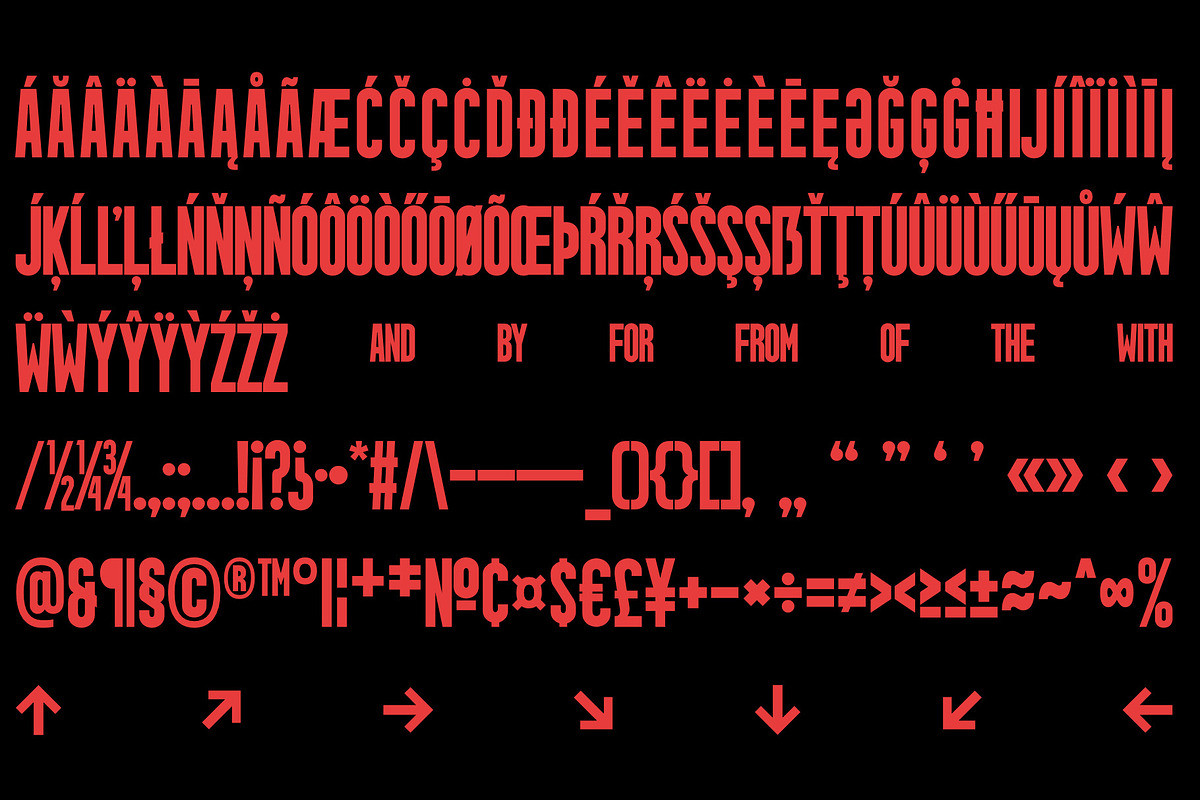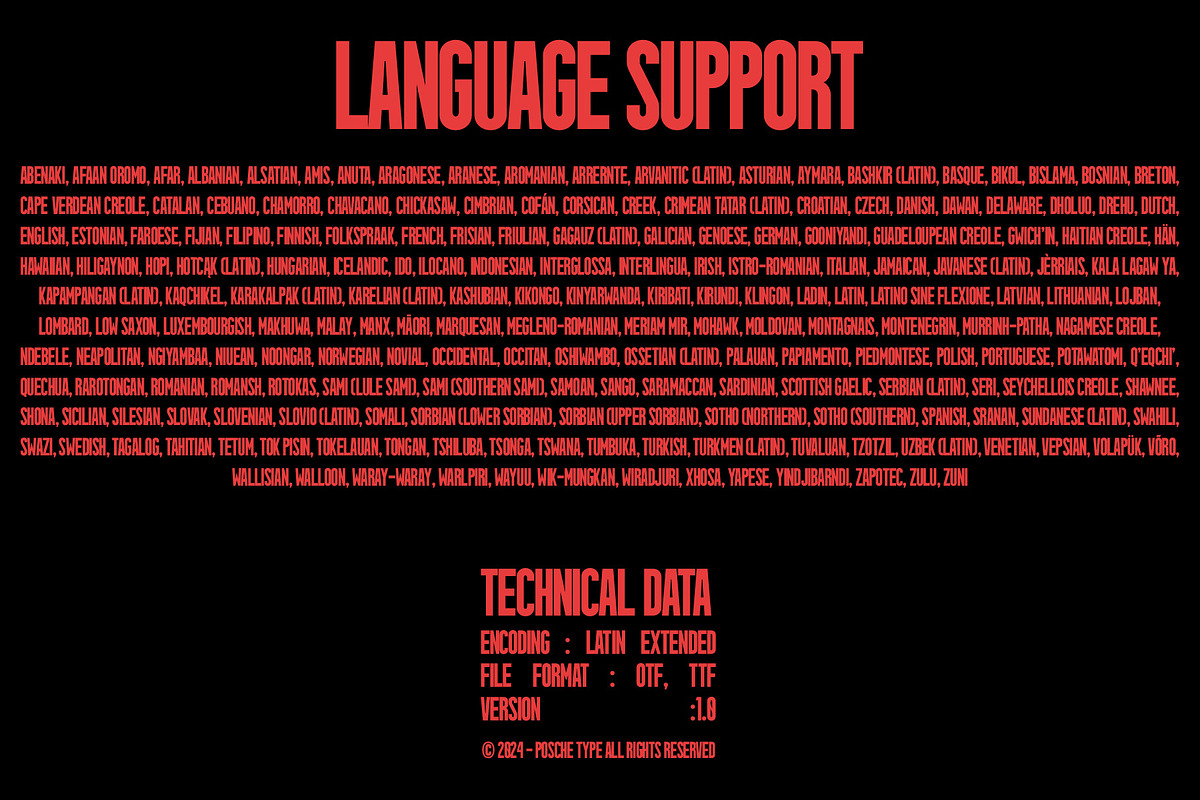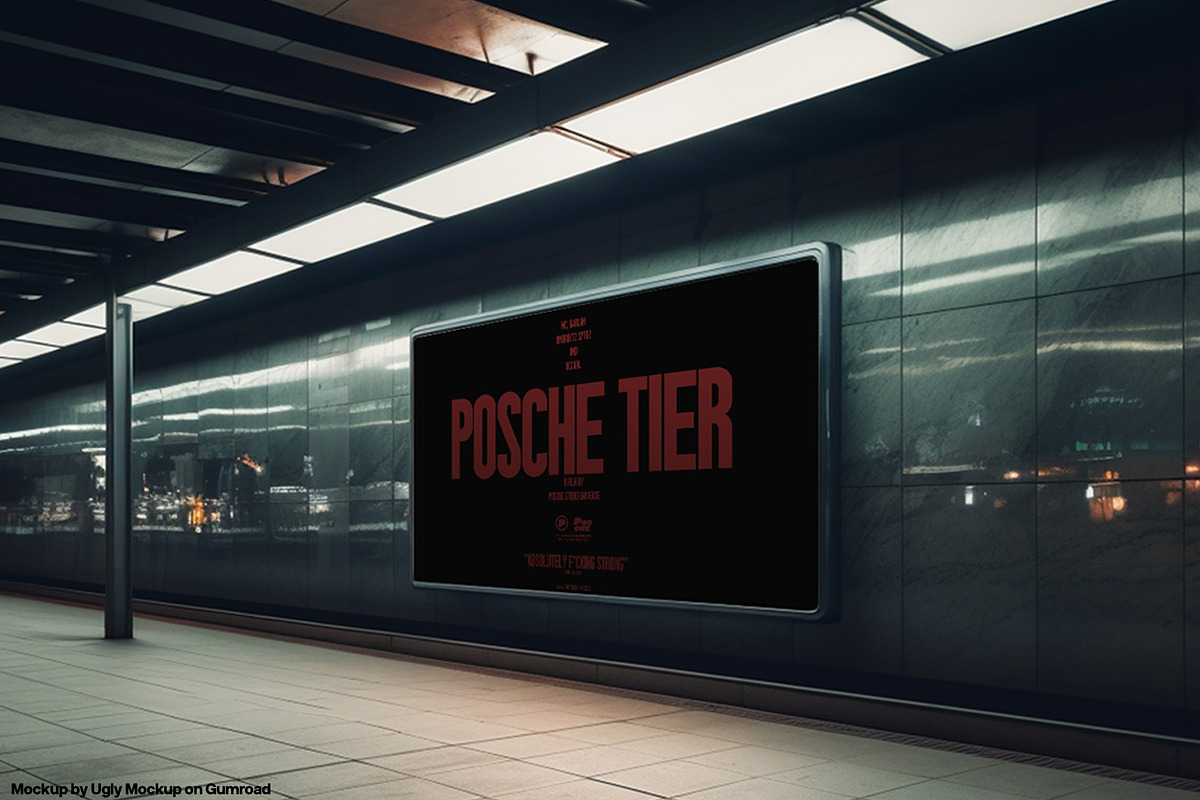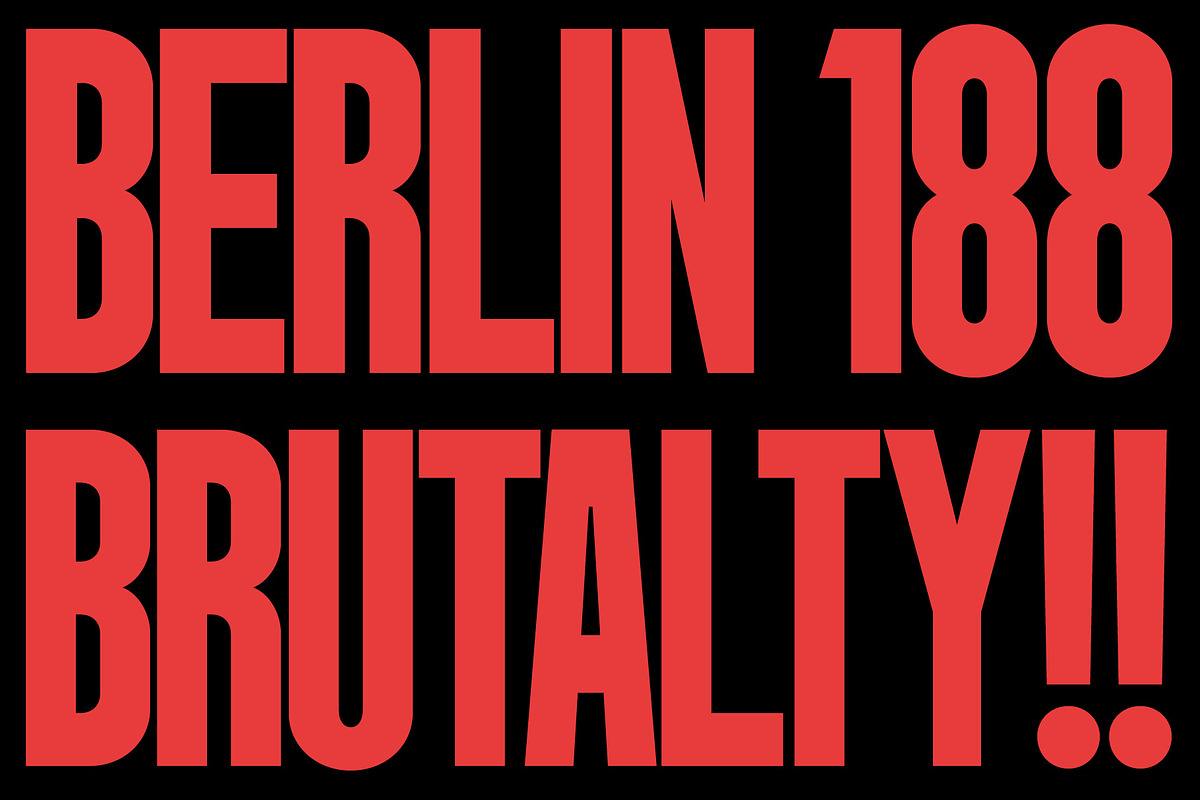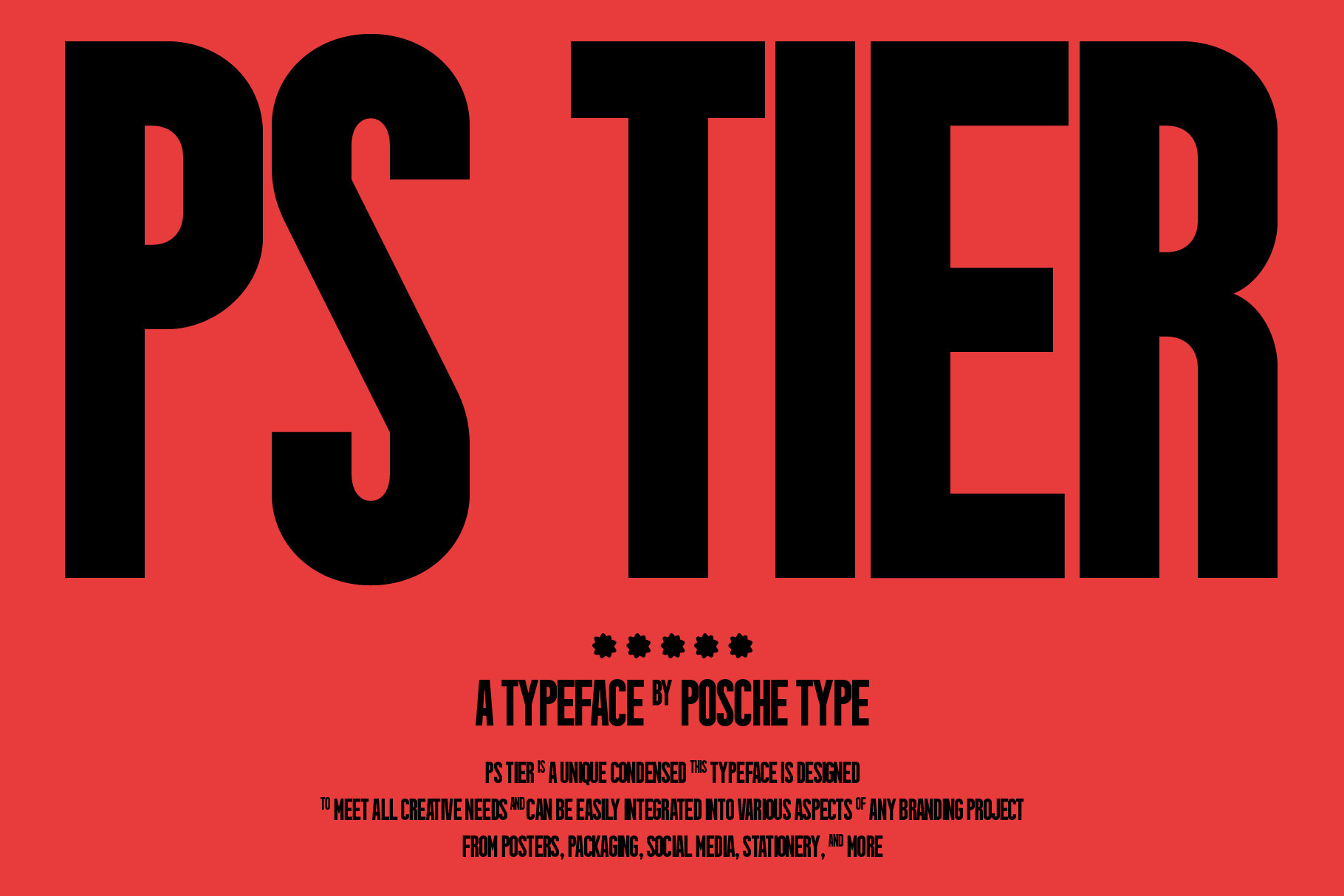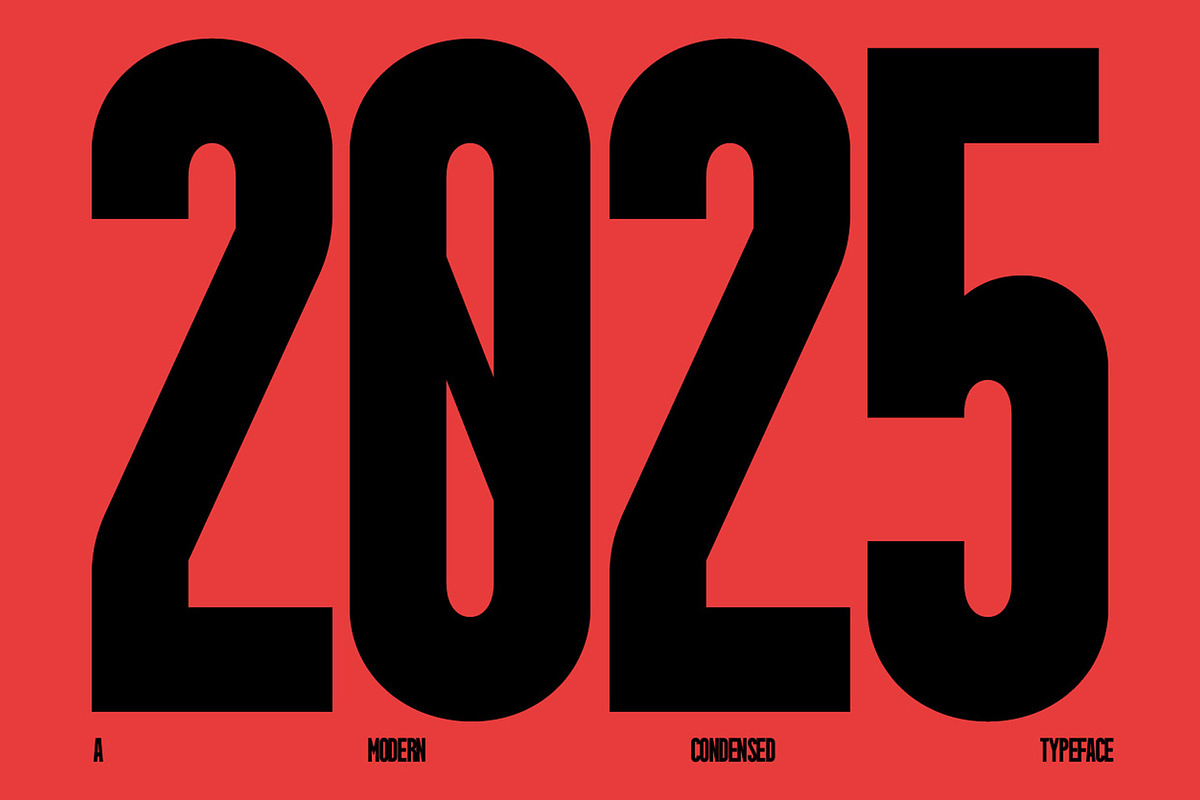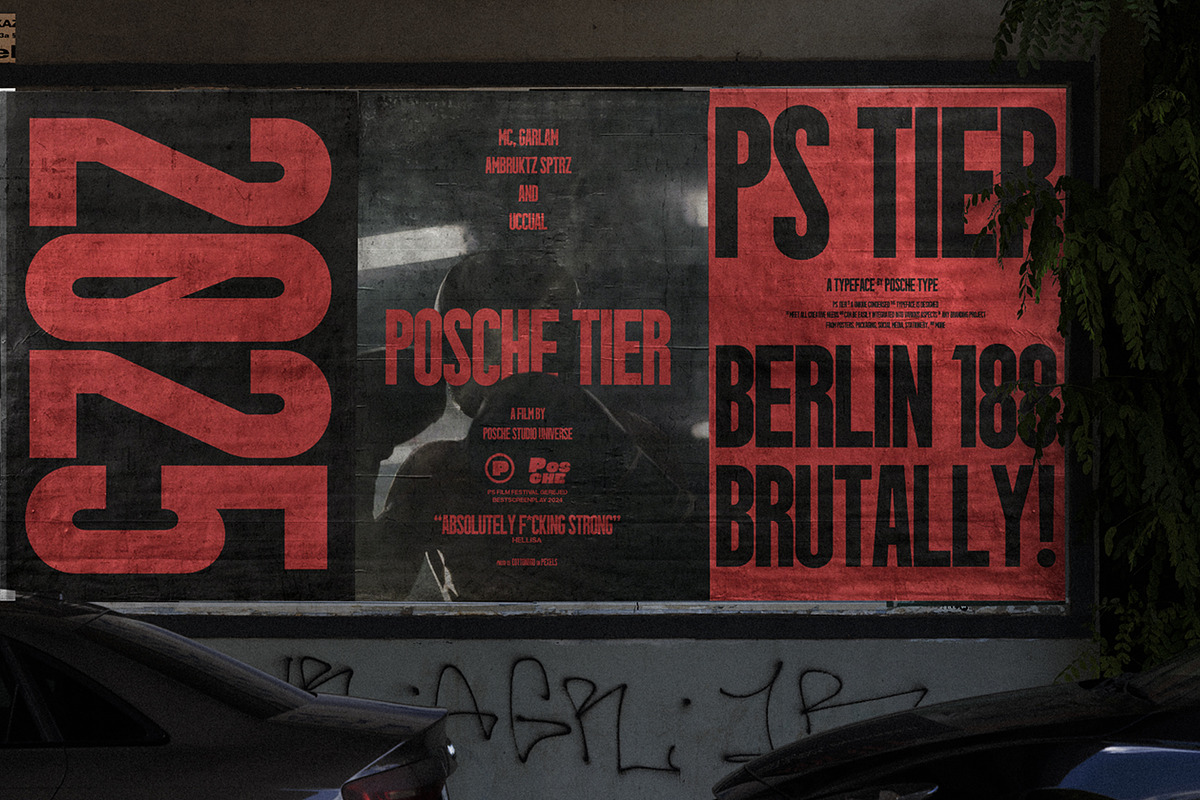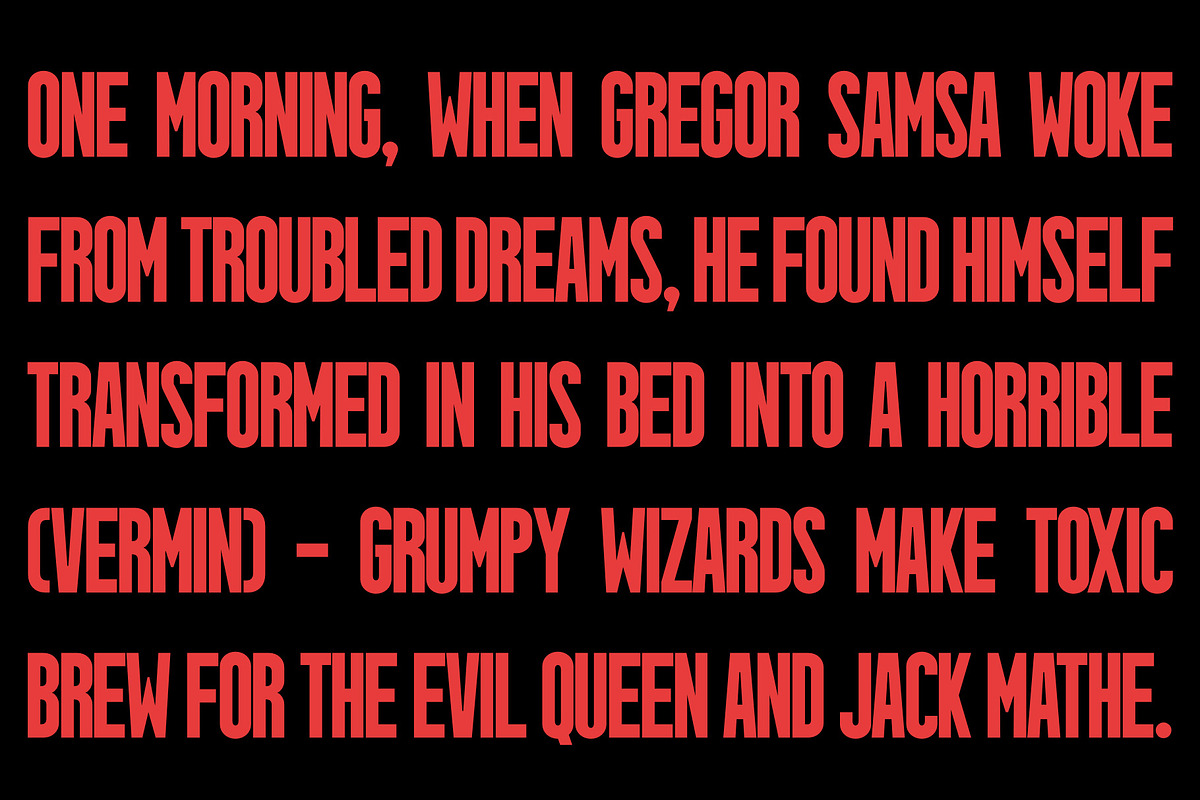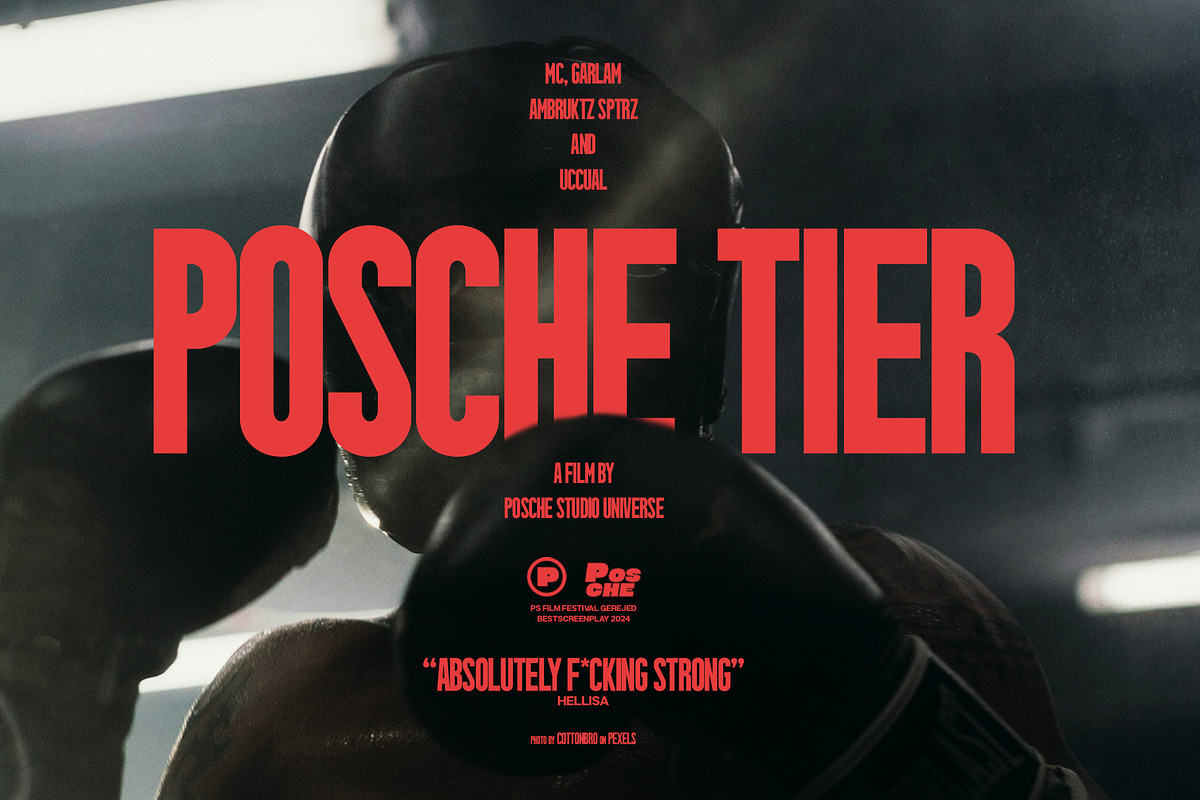
PS TIER | Display typeface
PS Tier is inspired by movie typography, featuring a bold yet distinctive style. It is designed for use in posters, and titling, and also works well when combined with various other creative designs. PS Tier is a condensed sans serif typeface with a single version in its first release, offering multilingual support, along with additional icons and symbols.
Following Language Support : LATIN EXTENDED ( Western European, Central European, South Eastern European )